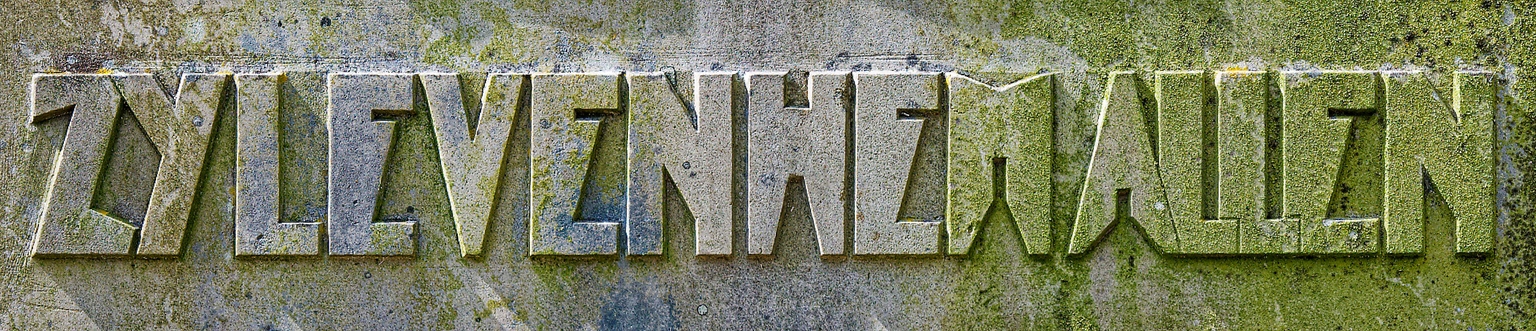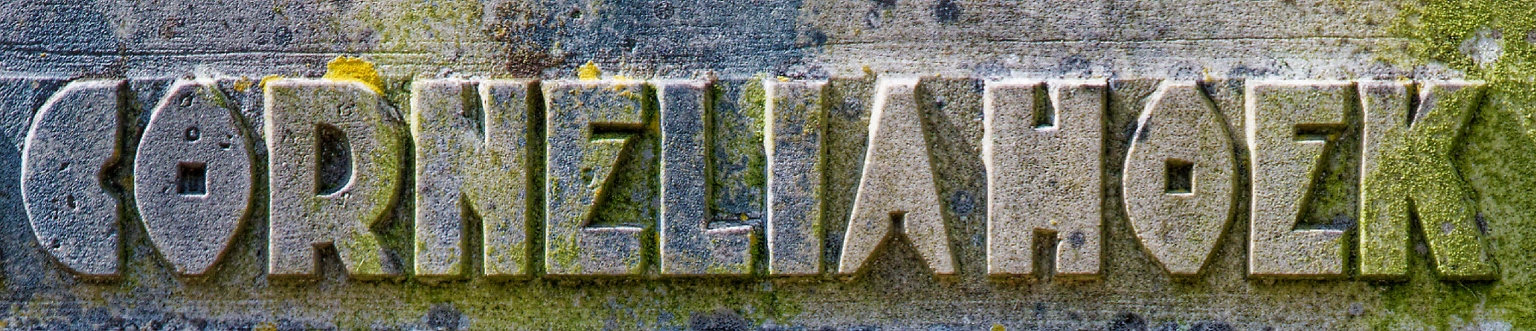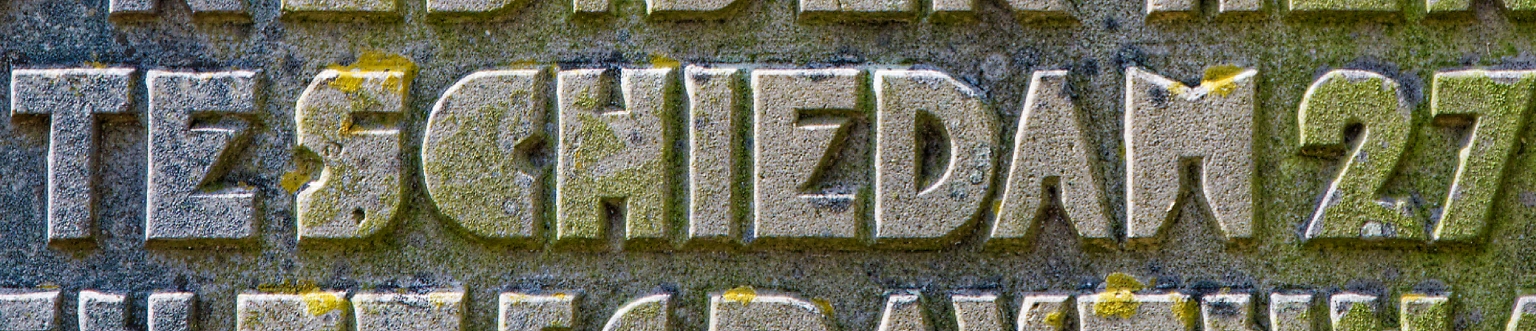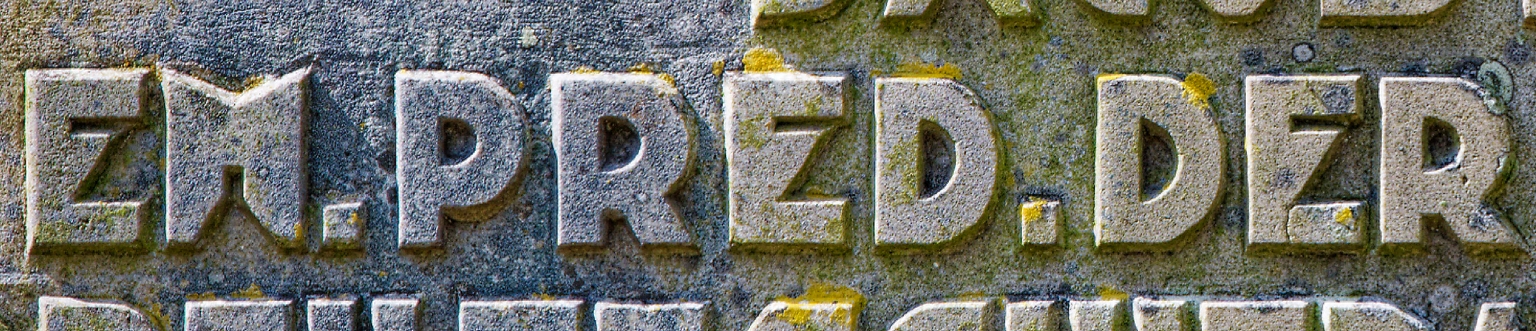
Hoek
Hoek is a dramatic display typeface designed by Ramiro Espinoza, inspired by the highly expressionist letterforms carved on the tombstone of Johanna Cornelia and Jakob Hoek in the historic Oud Eik en Duinen cemetery of The Hague. These unique letters—angular, condensed, and full of emotional tension—stand out as a rare and evocative example of early 20th-century funerary lettering with clear ties to Expressionism.
Moved by their raw beauty and unconventional rhythm, Espinoza transformed the original inscription into a complete typeface that retains the intensity and sculptural quality of the source. Hoek is not about neutrality—it is about attitude, presence, and style. Its sharp angles and witty details make it ideal for logos, posters, websites, and cultural projects that demand a strong, individual voice.
With Hoek, a hidden typographic gem from a quiet corner of The Hague is reimagined for contemporary design. Now available through Brutal Types, it brings expressive craftsmanship from stone to screen.